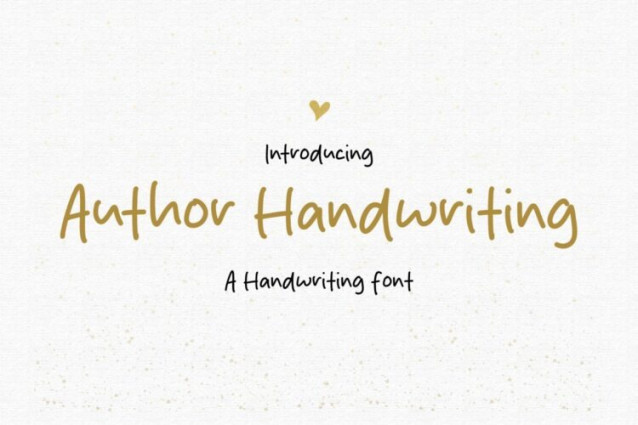
Author Handwriting Font
Author Handwriting Font is a simple and modern handwritten font suitable for quotes, logos, headings, titles, and many more. Use it on any of your creative projects, and your designs will become outstanding!